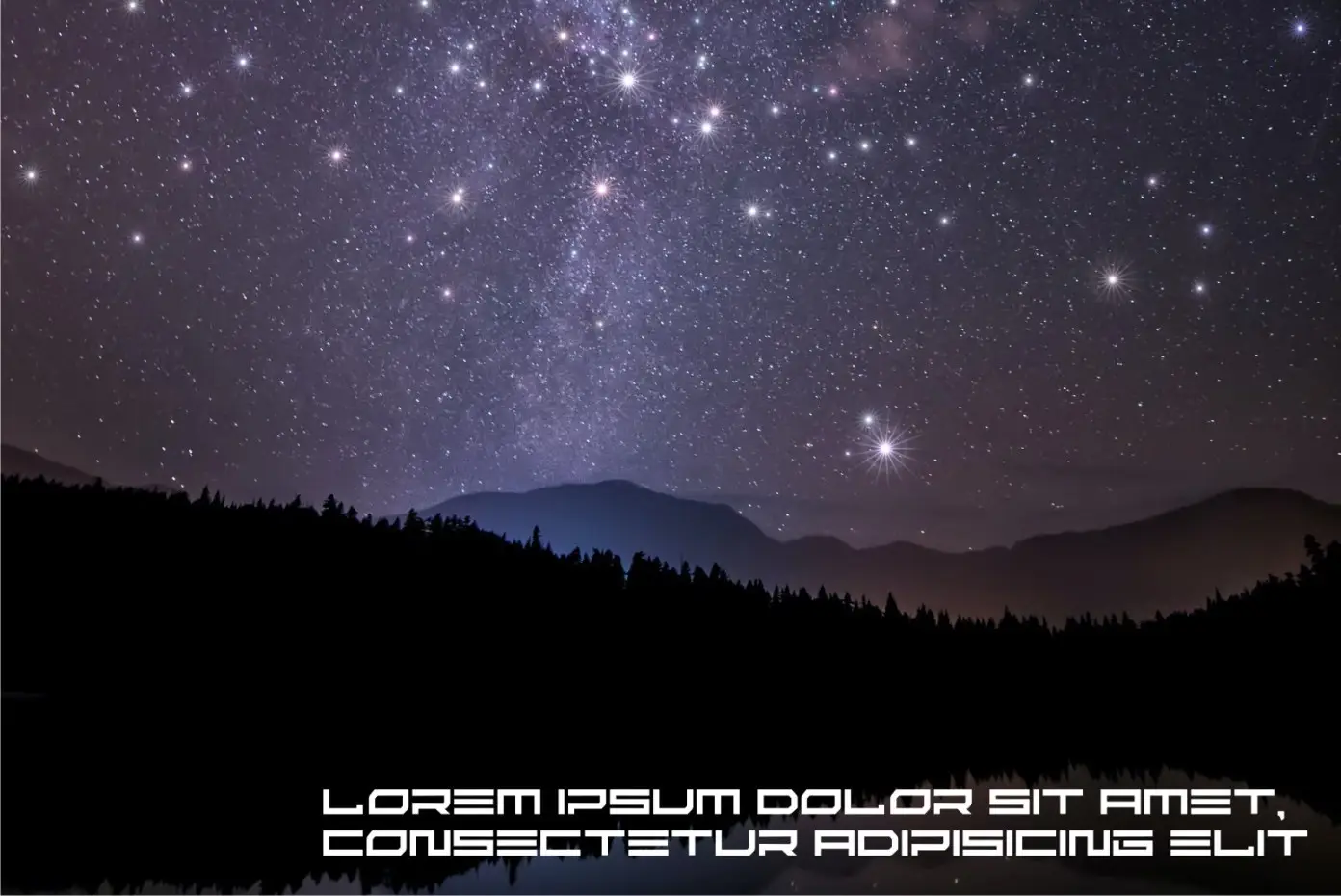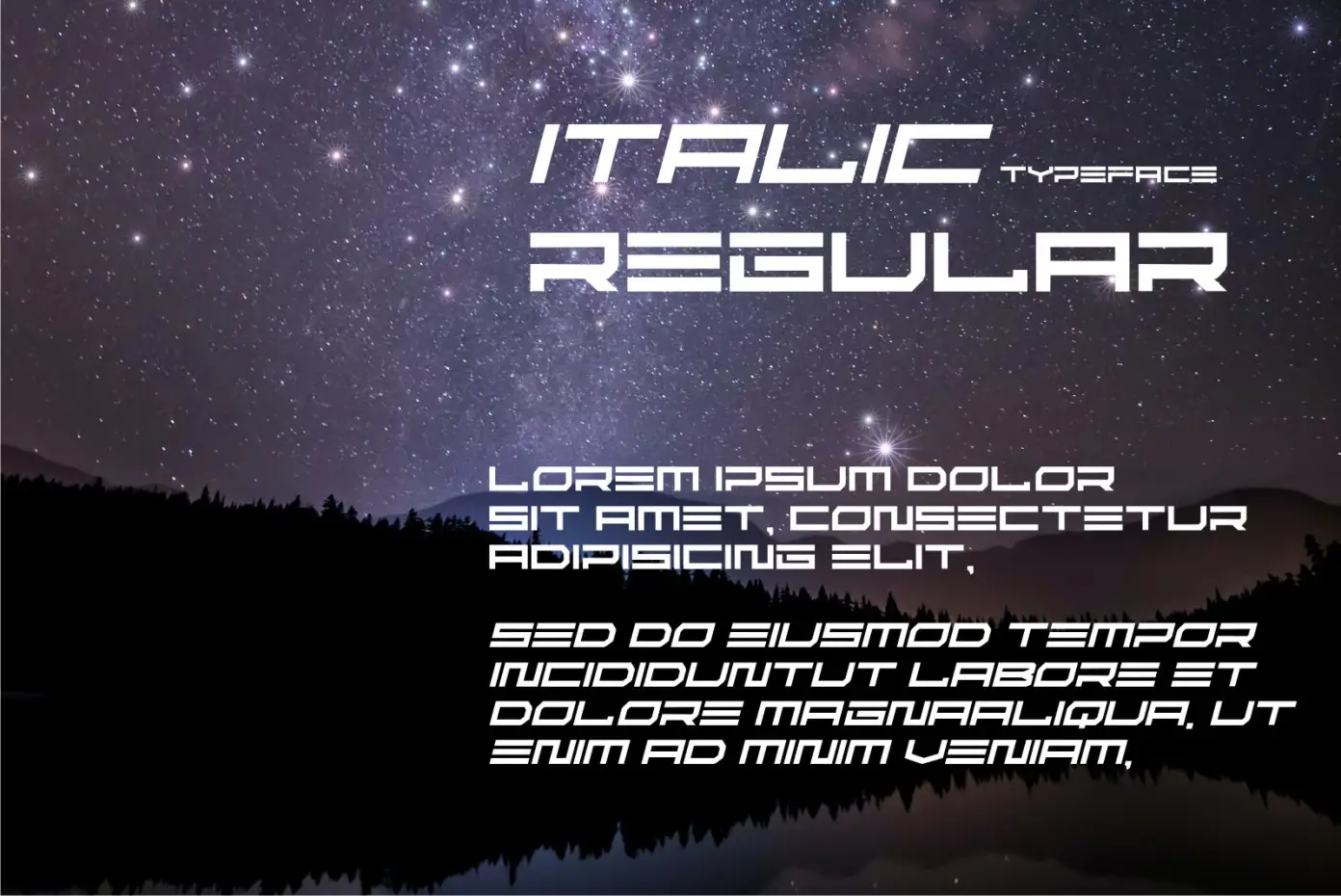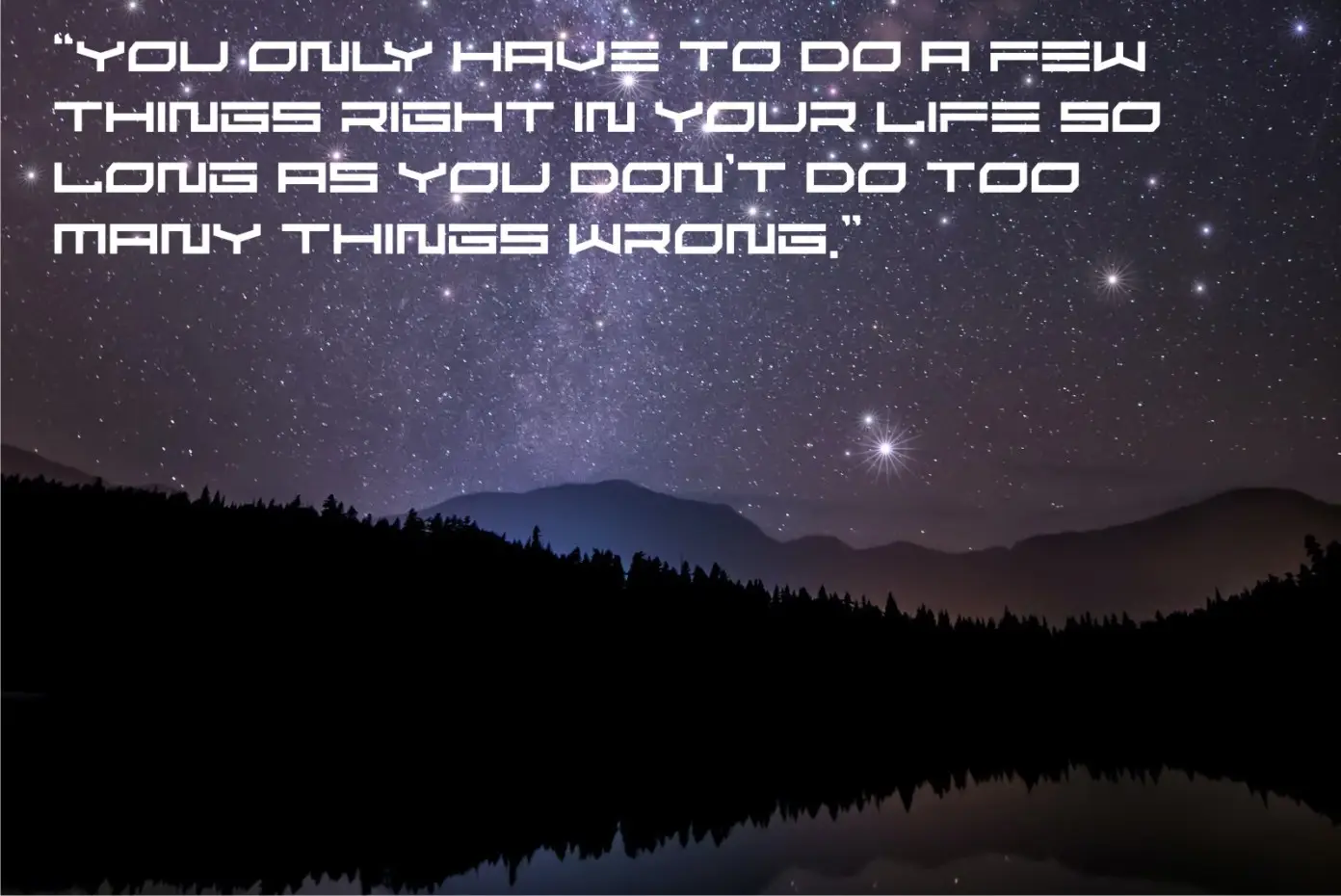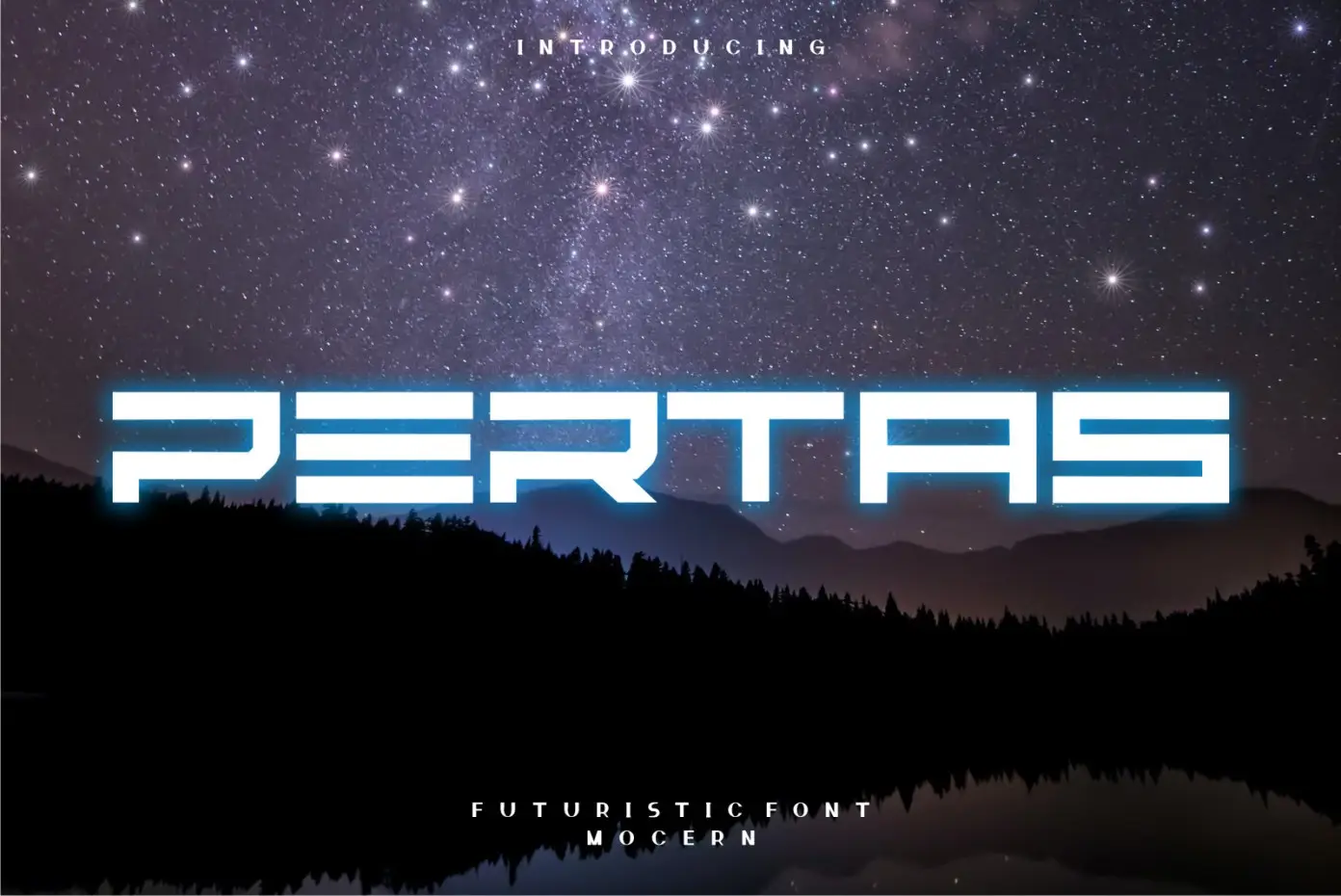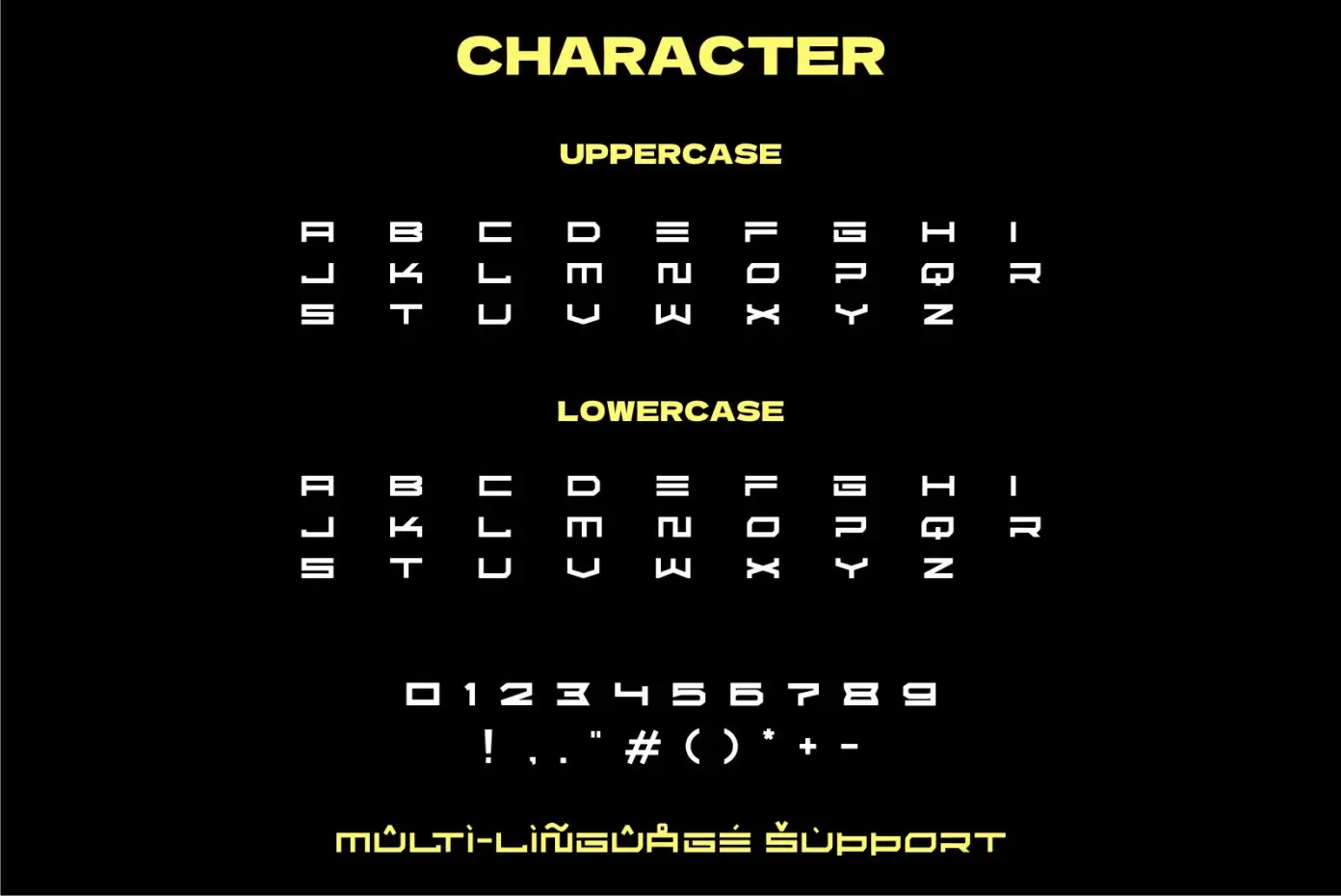
Pertas Font
The Pertas Font is a versatile typeface that combines elegance with modernity, making it ideal for a variety of design projects. With its clean lines and distinct character, this font is perfect for branding, logos, web design, and print materials.
• Multiple weights for flexibility
• Easy to read in both large and small sizes
• Ideal for creating eye-catching logos and branding materials.
• Use in web design for a modern and professional look.
• Perfect for print projects such as brochures, flyers, and business cards.